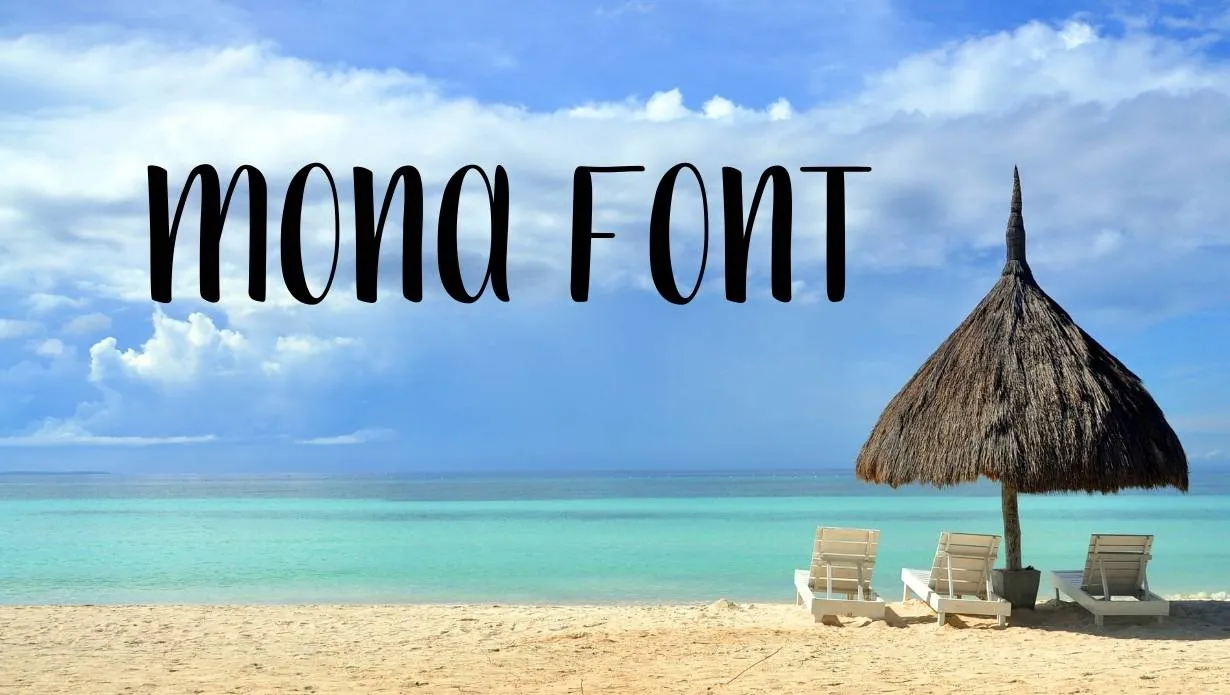
About Mona Handdrawn Font
Mona Handdrawn is a playful, casual script font with a natural, hand-drawn style that adds a personal touch to any design. Its irregular lines and charming imperfections give it an authentic, handcrafted feel, making it ideal for greeting cards, invitations, social media graphics, logos, and packaging. The font combines readability with artistic expression, allowing designers to create warm and friendly visual identities. Its versatile style works beautifully across both digital and print projects, offering a unique, approachable aesthetic.